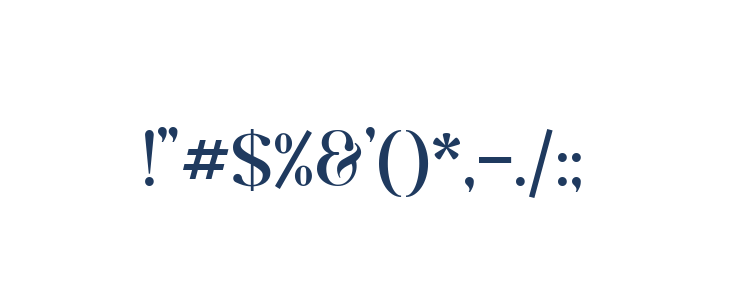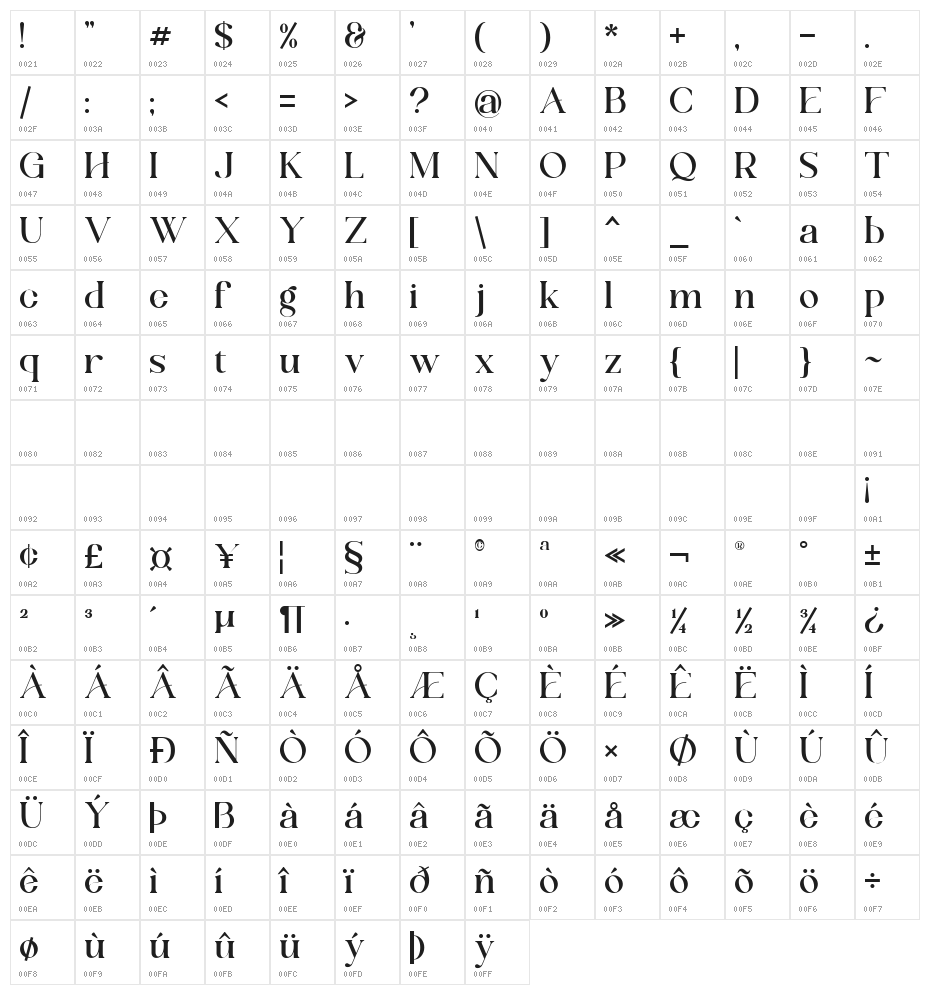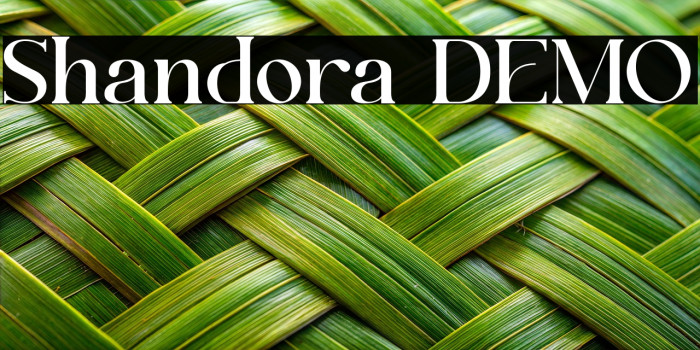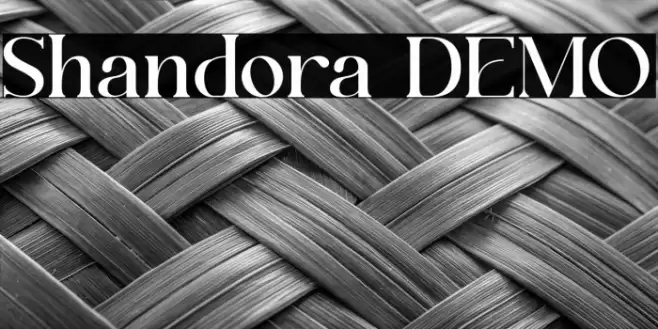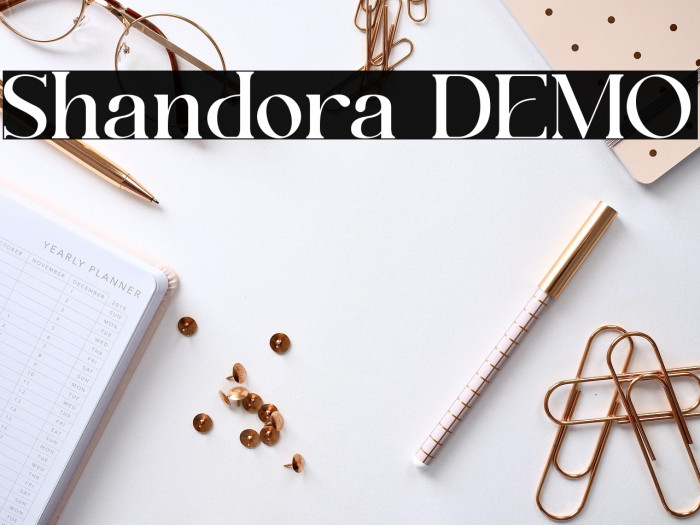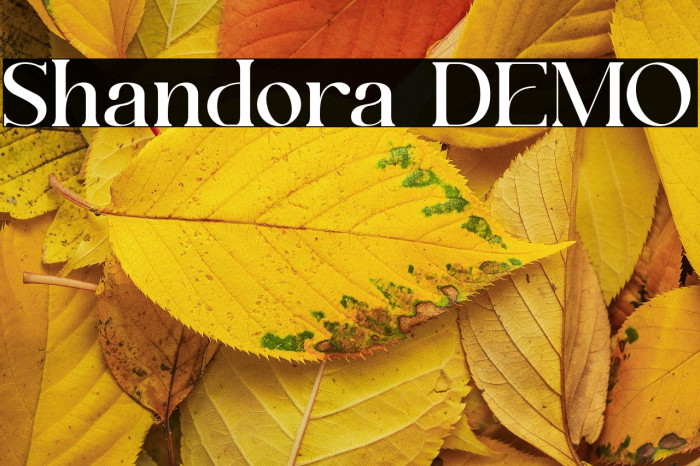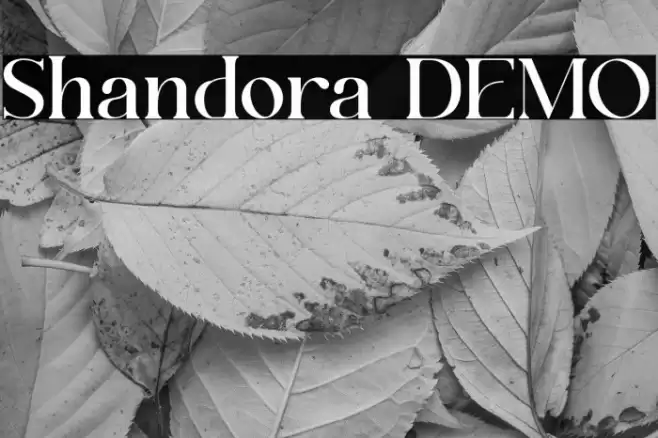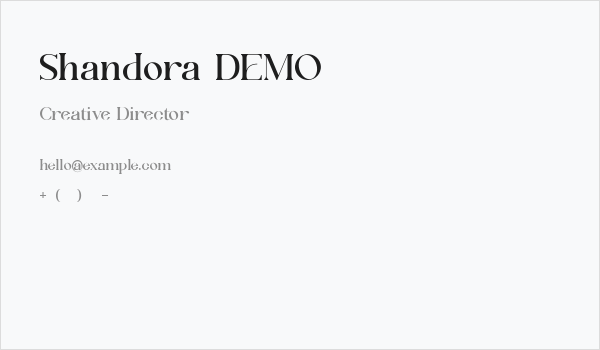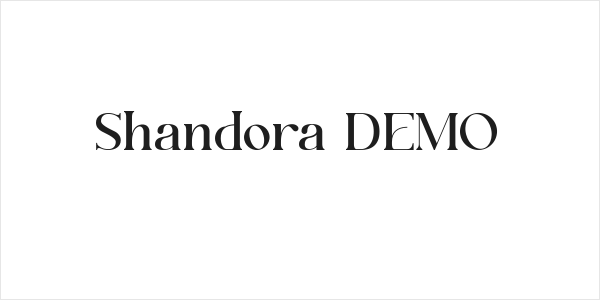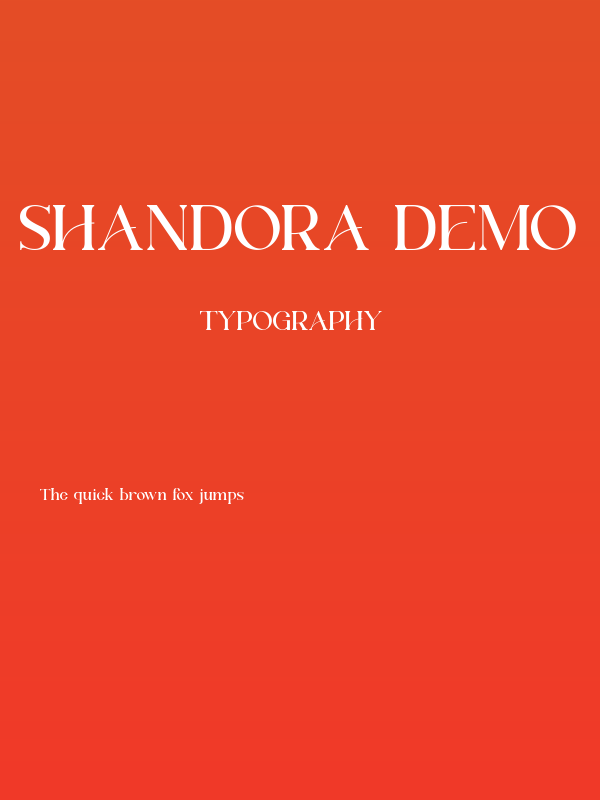
Shandora DEMO Font
Shandora DEMO Description
This font features a sophisticated and elegant design with a high contrast between thick and thin strokes, giving it a refined and classic appearance. The serifs are pronounced and sharp, adding a touch of formality and tradition. The uppercase letters are tall and commanding, while the lowercase letters maintain a balanced and harmonious flow. The numerals and special characters are crafted with the same attention to detail, ensuring consistency throughout. This font is ideal for projects that require a touch of elegance and sophistication, such as luxury branding, editorial design, and formal invitations.
| Use Case | Headlines, Logos, Editorial design |
| Proposed Projects | Luxury branding, editorial design, formal invitations, high-end packaging. |